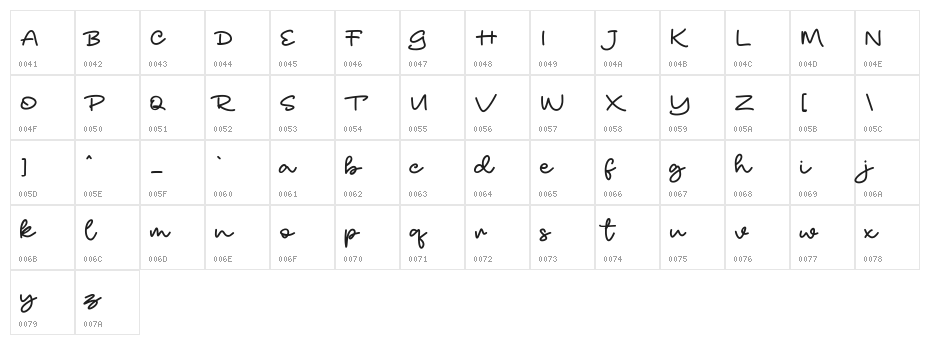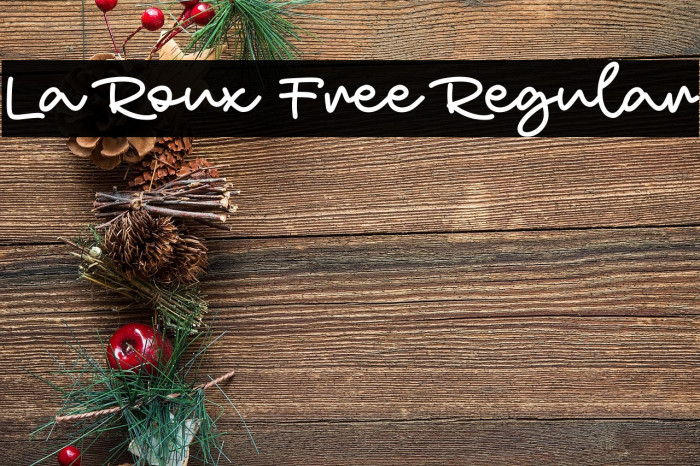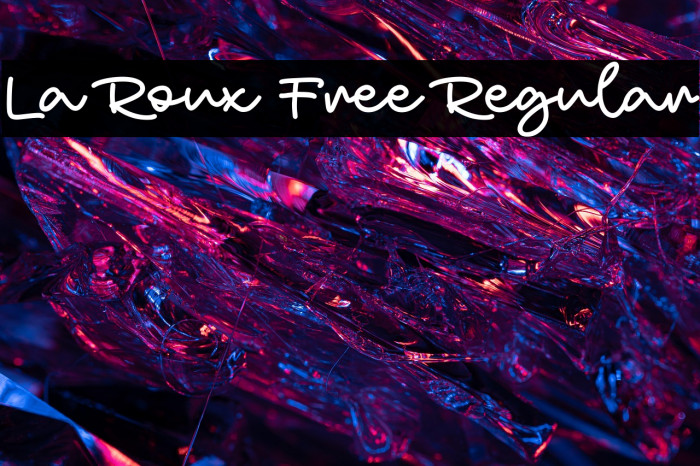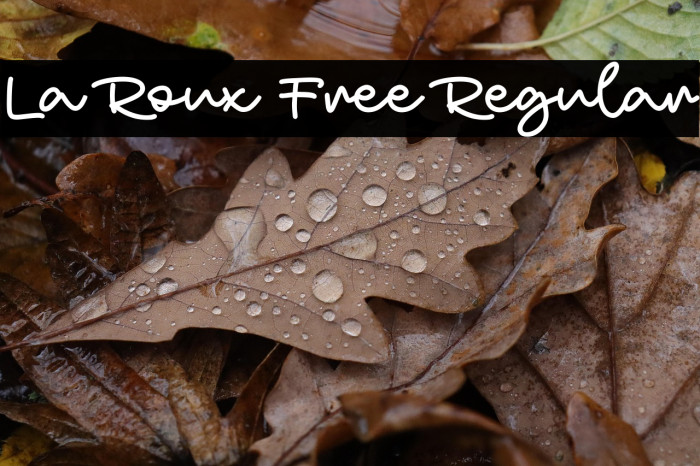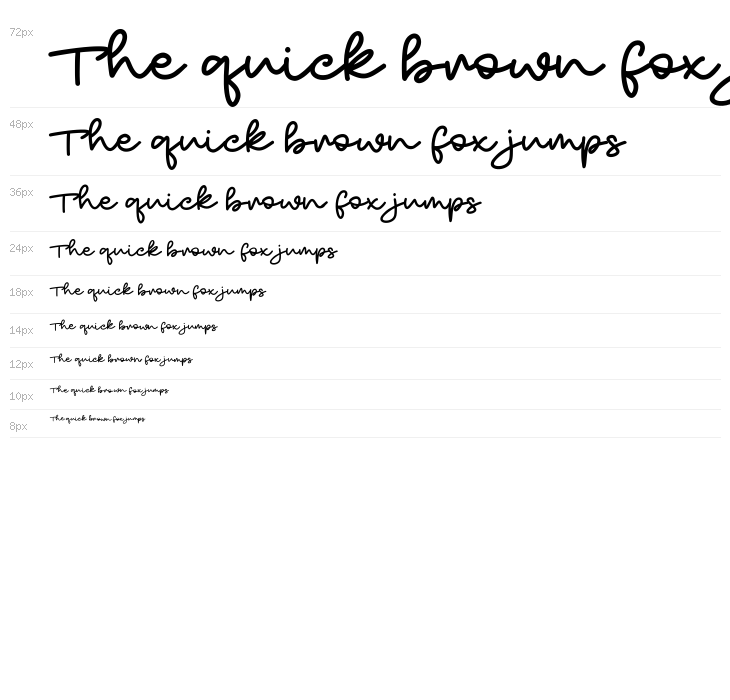
La Roux Free Regular Font
La Roux Free Regular Description
This font features a playful and casual handwritten style, characterized by smooth, flowing lines and a slightly irregular baseline that adds to its charm. The uppercase letters are bold and confident, while the lowercase letters maintain a consistent rhythm, enhancing readability. The strokes are medium in thickness, providing a balanced contrast that is neither too heavy nor too light. This font's organic and informal appearance makes it suitable for projects that require a personal touch or a relaxed vibe. Its versatility allows it to be used in a variety of contexts, from invitations and greeting cards to social media graphics and branding materials. The font's unique style captures attention without overwhelming the viewer, making it an excellent choice for creative and expressive designs.
| Overall Style | Casual, Playful |
| Use Case | Headlines, Logos, Invitations |
| Proposed Projects | Ideal for invitations, greeting cards, social media graphics, and branding materials. |